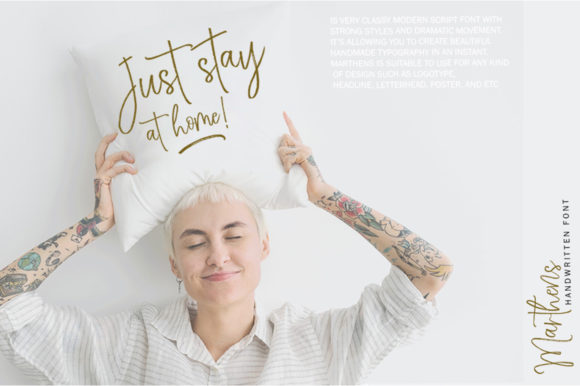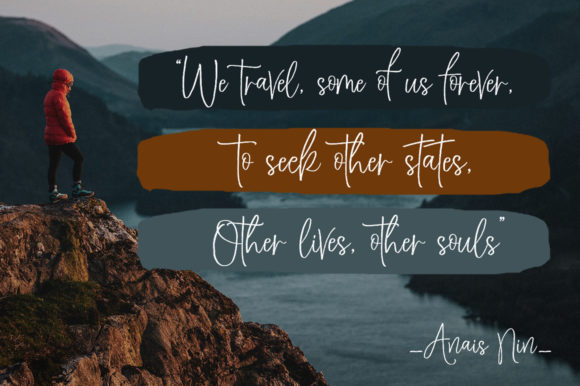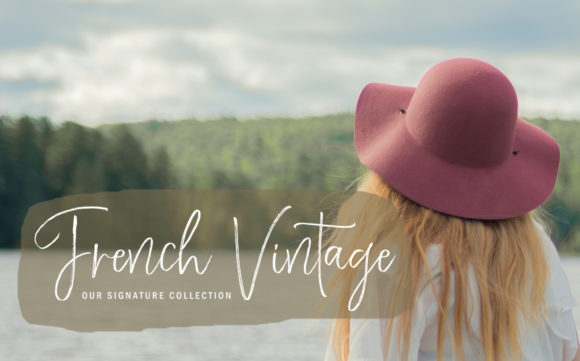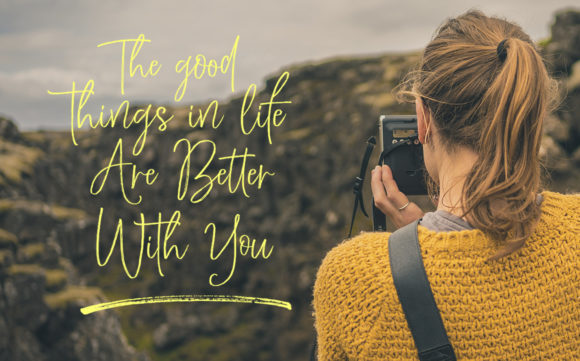
Introduction to Marthens Font
Marthens is a casual, fun handwritten font, created by using a brush pen.
| ๐ค Author | Youngtype |
This font will look outstanding in any context, whether itโs being used on busy backgrounds or as a standalone headline .
Key Features of Marthens Font
Why Choose Marthens Font?
Marthens Font offers exceptional quality and versatility, making it a valuable addition to your design toolkit. Whether you’re creating for personal projects or commercial use, Marthens Font delivers professional results.